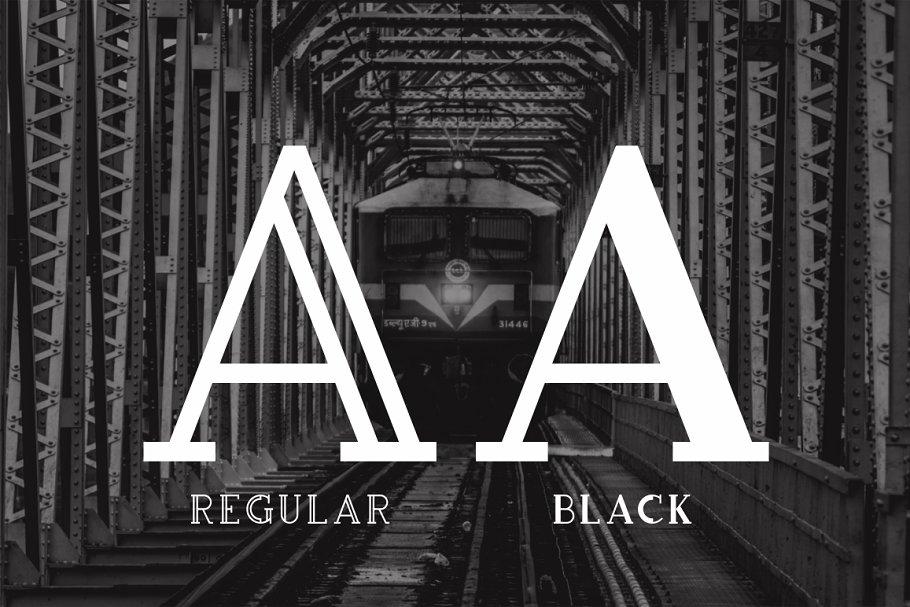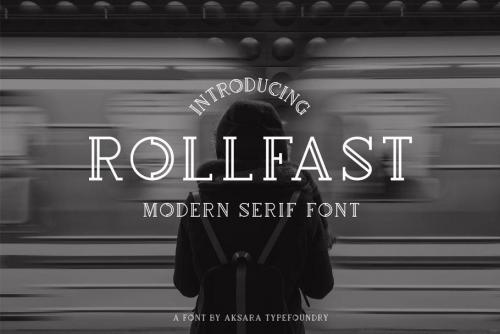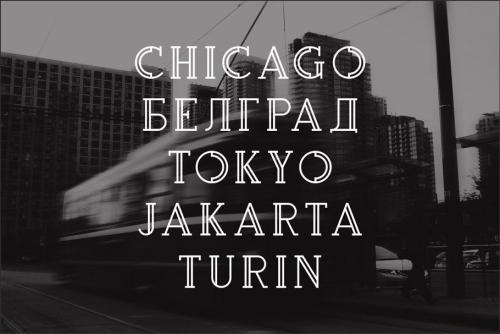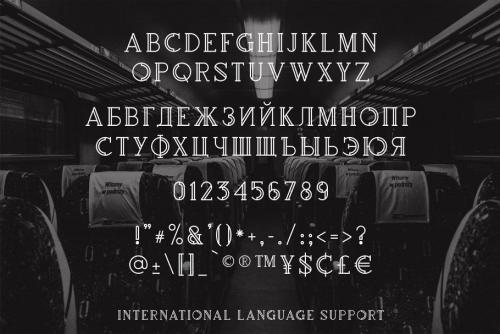
Rollfast is modern serif font, which is combining the style of classic typography with an modern style. Perfect for your word art typography, poster, labels, t shirt or modern logo.
- Designer: Aksara Typefoundry